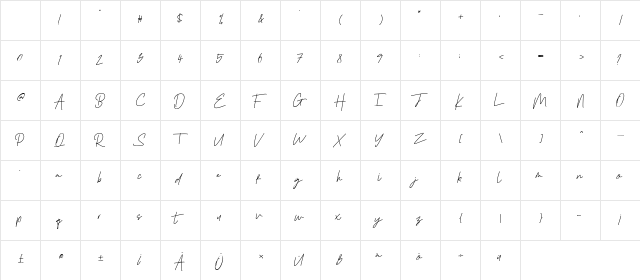
Emmaverp is a composed and adaptable typeface that performs quietly and consistently across a wide range of design contexts.
Pro Tip: Use Emmaverp in both headline and body roles to test its range before committing to a single application.